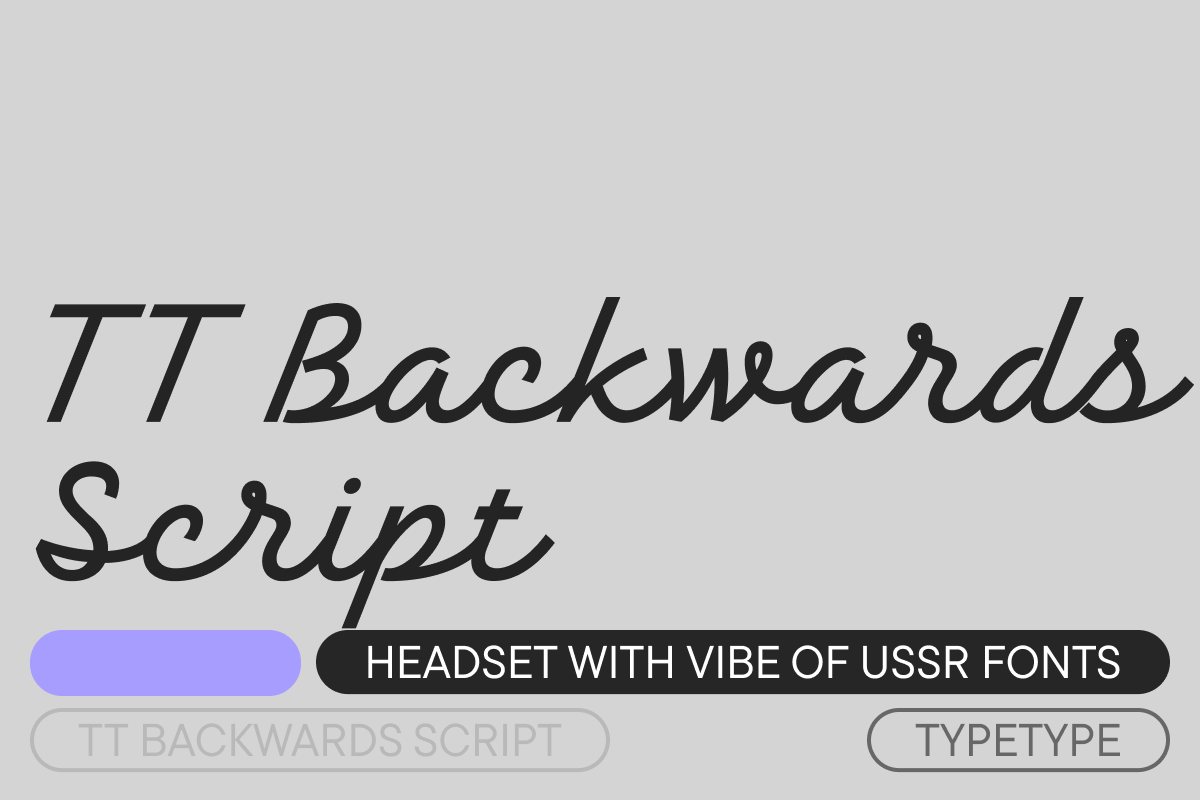
TT Backwards Script Thin
TT Backwards is an experimental font project inspired by the USSR typography and fonts of the late 70s and early 80s. Shop signs, posters, and book design—this is where we drew the inspiration for our project from. TT Backwards Script is non-contrast almost monolinear solid script inspired by shop signs, poster and book design of the USSR. TT Backwards Script features a large number of Latin and Cyrillic ligatures, which allows to make the script more versatile and sophisticated to the max.